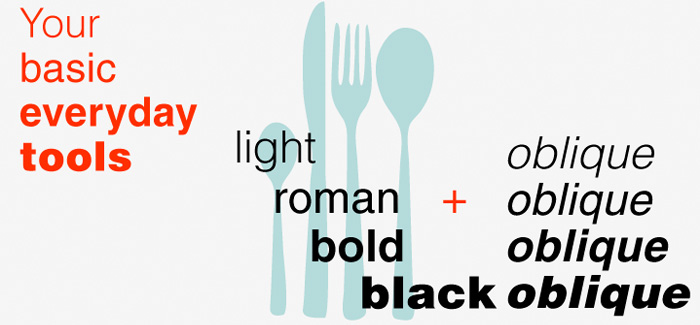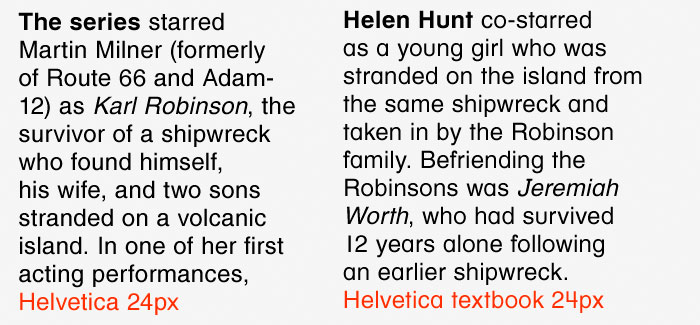
Helvetica font
Helvetica font is one of the most popular typefaces of all time.
It was designed by Max Miedinger in 1957 for the Haas foundry of Switzerland (the name is derived from Helvetia, the Latin name for Switzerland).
The design is based on the grotesques of the late nineteenth century, but new refinements put it in the sans serif sub-category of neo-grotesque. Shortly after its introduction, the Stempel foundry purchased the original Helvetica typeface and developed a full series of weights. In the 1960s Helvetica font came to the United States, where alignment standards differed; Mergenthaler Linotype copied the Stempel series and then added several new versions of the design. Helvetica is an all-purpose type design that can deliver practically any message clearly and efficiently.
The condensed and compressed Helvetica designs are excellent for display applications such as newspaper or newsletter headlines, billboards, and advertising.
The basic design of Helvetica Rounded is the same as the design of the standard Helvetica typefaces. Designed in 1980, it differs only in the stroke endings, which are rounded rather than squared off. The overall effect of this display type is more playful and friendly than its traditional relative.
Designers: Edouard Hoffmann, Max Miedinger, Matthew Carter
Publisher: Linotype
Original foundry: Haas